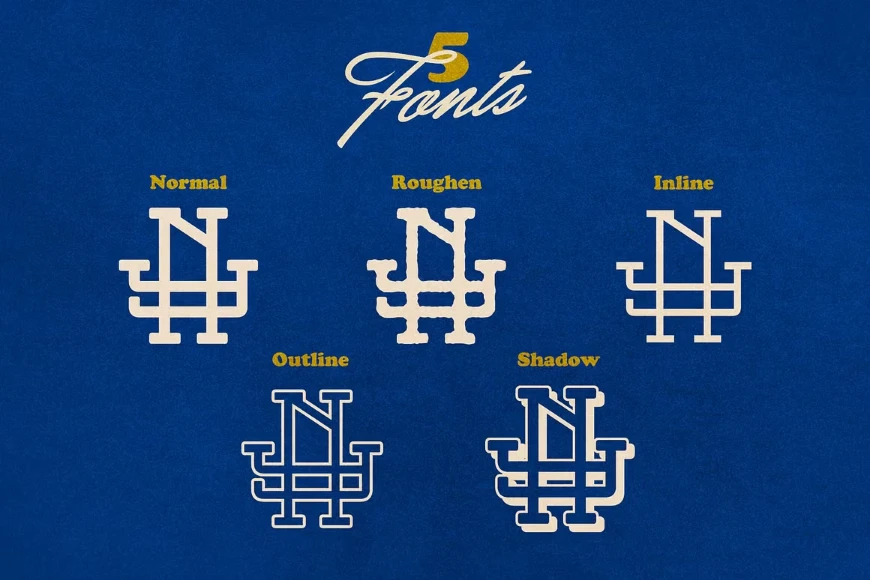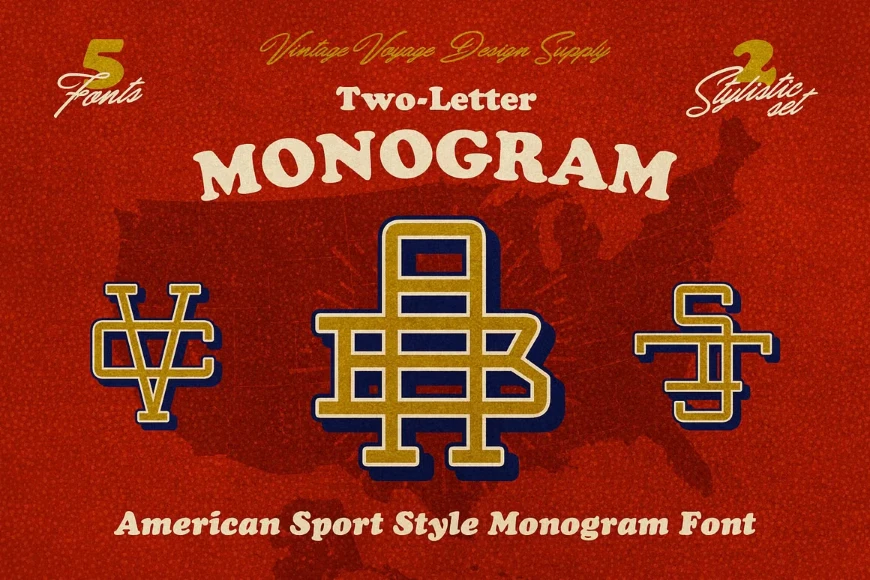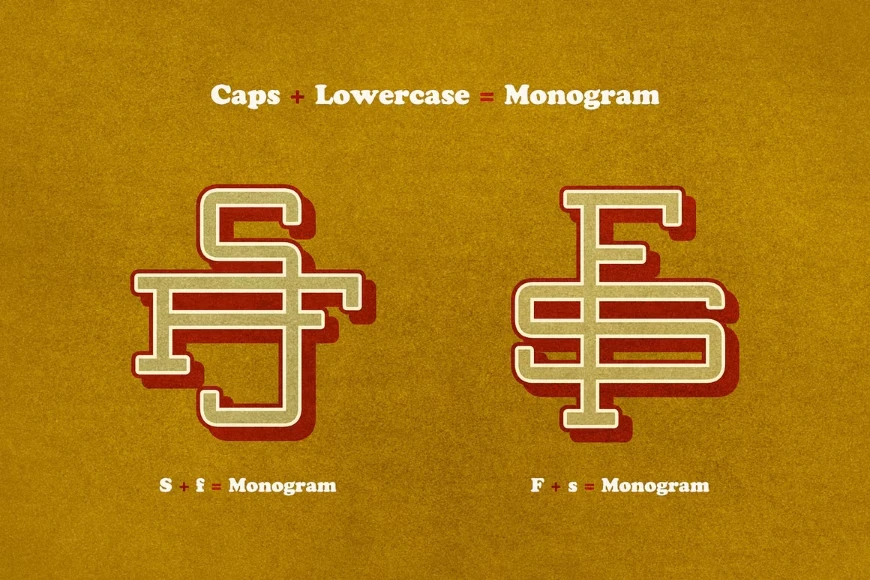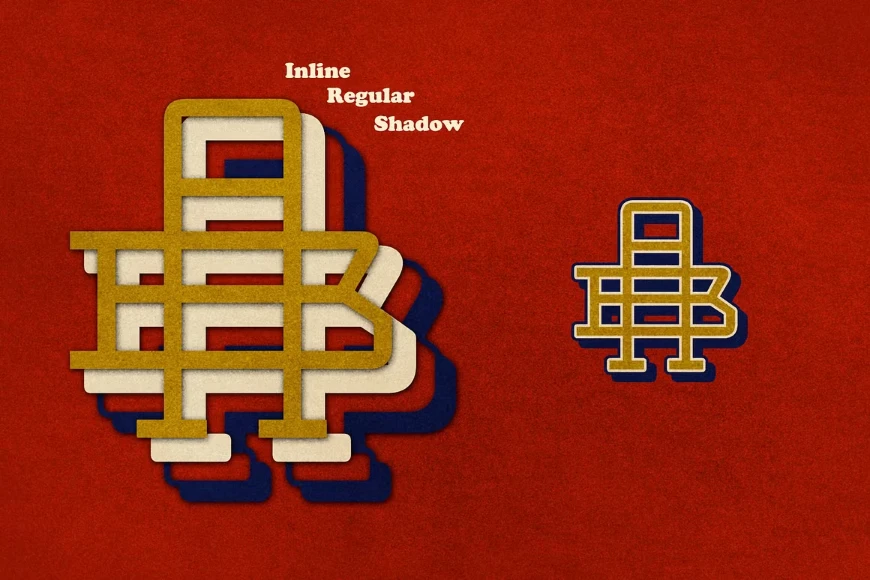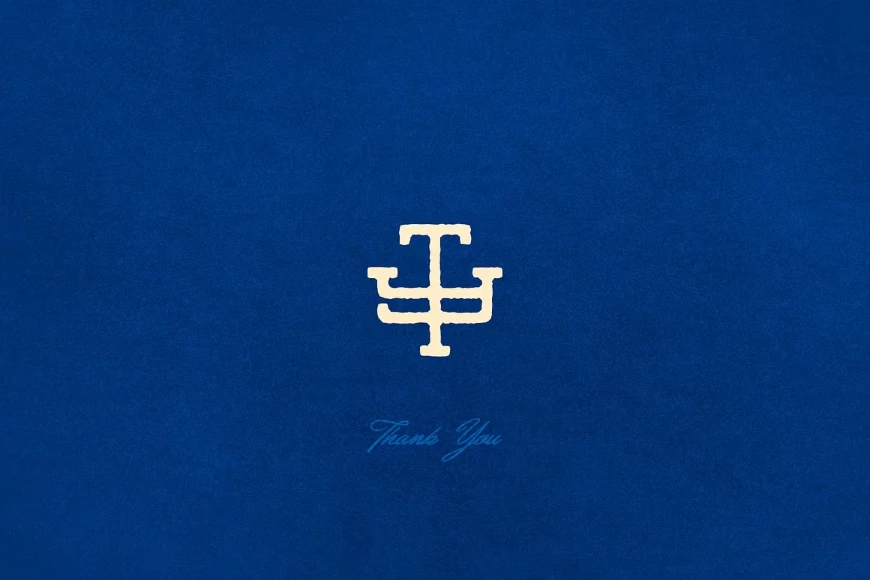
Two Letter Monogram
Two Letter Monogram Inline
Two Letter Monogram Outline
Two Letter Monogram Regular
Two Letter Monogram Rough
Two Letter Monogram Shadow
Two-Letter Monogram is a font designed for creating bold, custom monograms with a vintage or sporty feel. Perfect for logos and merch, including t-shirts, mugs, flags, pillows, and more. Built to deliver strong, stylish letter pairs for standout designs with a personal touch. Ideal for branding and decorative uses with a classic edge.